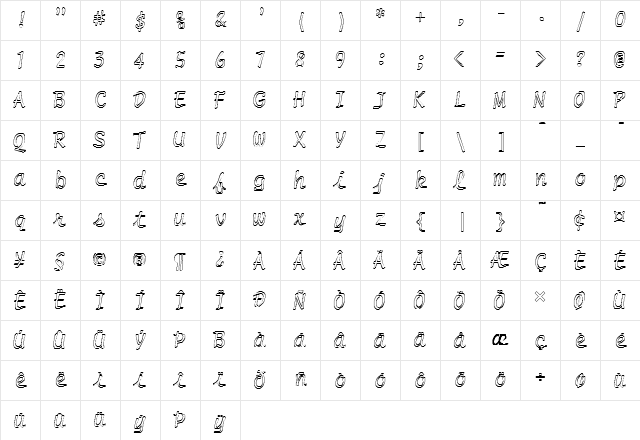
FZ HAND 20 HOLLOW Normal Free Font
FZ HAND 20 HOLLOW Normal
Design Context for FZ HAND 20 HOLLOW
FZ HAND 20 HOLLOW flows with the natural rhythm of handwritten lettering, making it ideal for designs that call for warmth and personal expression.
Font Pairing: Combine FZ HAND 20 HOLLOW with a simple geometric sans for maximum contrast - the tension between flowing curves and clean structure is a classic typographic pairing.
Pro Tip: Use FZ HAND 20 HOLLOW for short runs of text - names, titles, or taglines. Extended body copy in script faces tires the eye quickly.